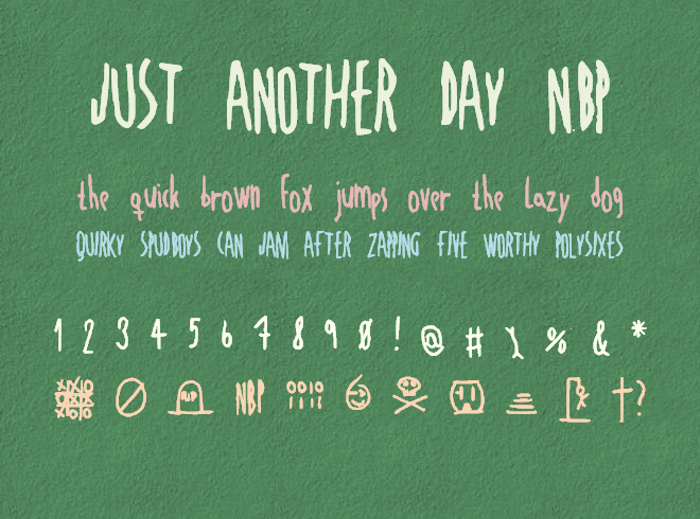
JustAnotherDayNBP Font
A narrow sans-serif handwriting font with some Art Deco and Art Psycho influence. WARNING: some of the dingbats might not be school appropriate.